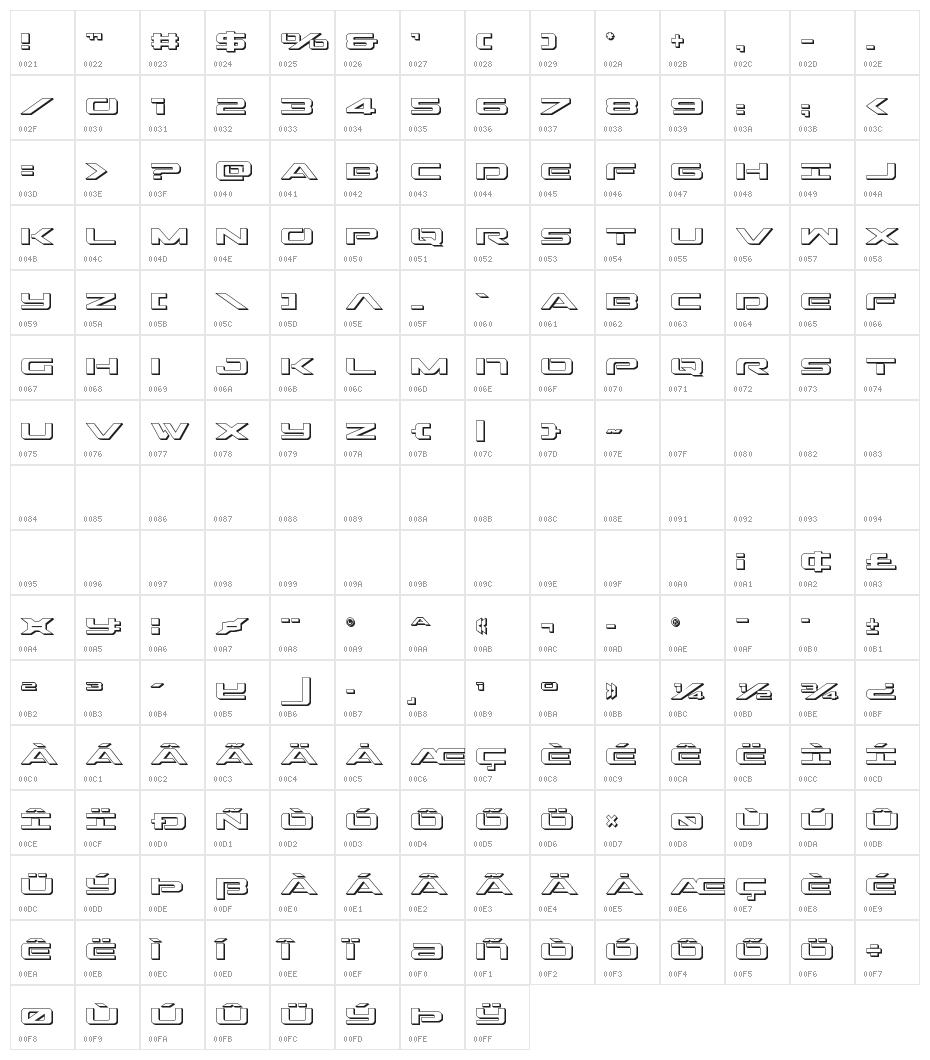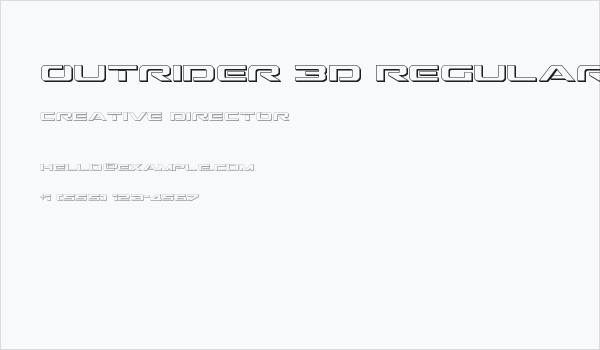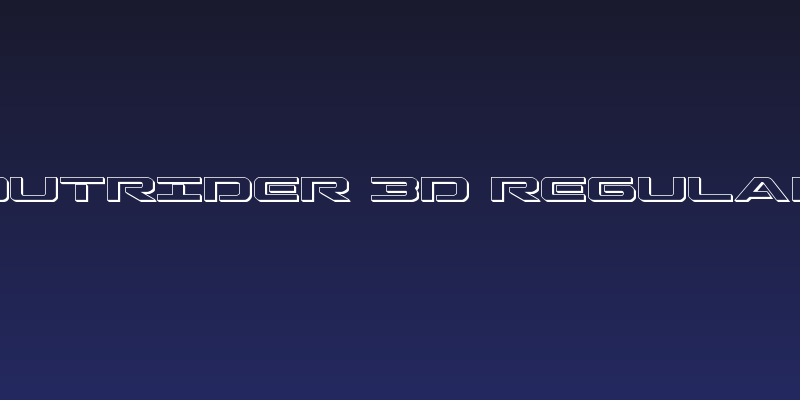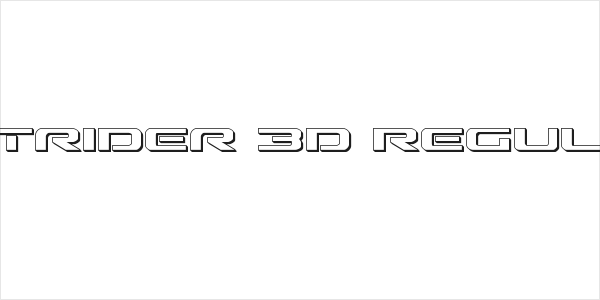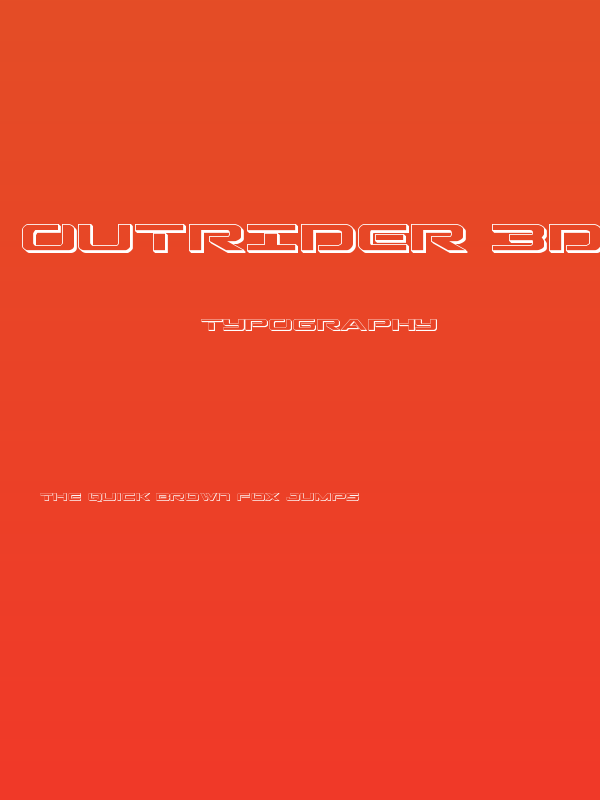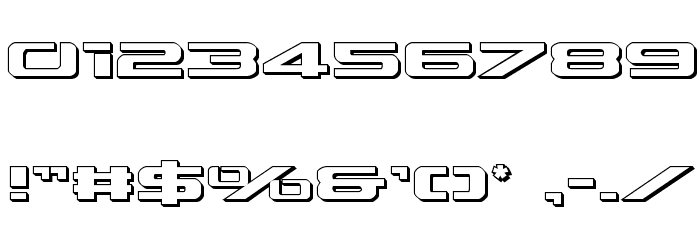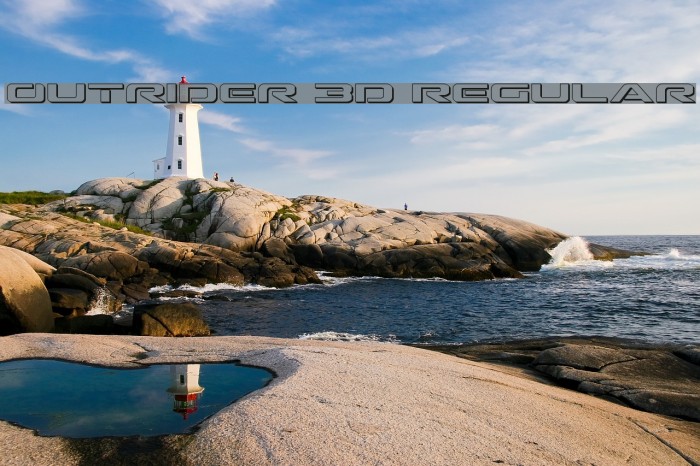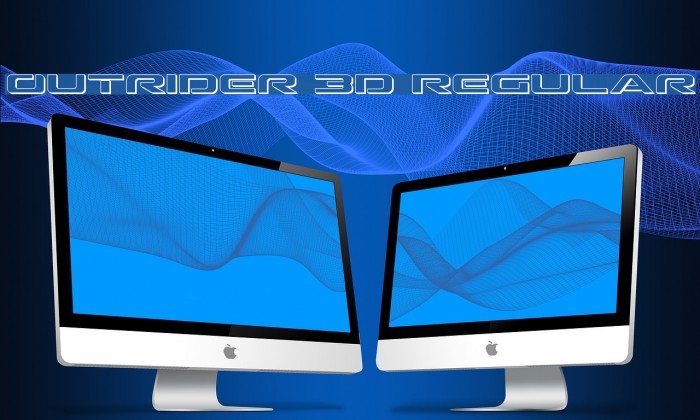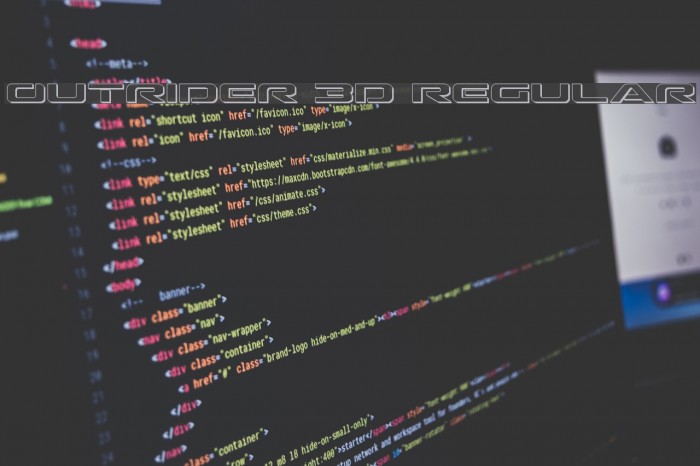
Outrider 3D Regular Font
This font features a bold, futuristic design with a three-dimensional effect. The characters are outlined, creating a hollow appearance that adds depth and visual interest. The geometric shapes and sharp angles give it a modern and tech-inspired look. Each letter is distinct, with consistent line thickness and a uniform style that maintains readability while offering a unique aesthetic. The numbers and special characters follow the same design principles, ensuring a cohesive appearance across all glyphs. This font is ideal for projects that require a standout, contemporary typeface.
| Proposed Projects | Ideal for sci-fi themed designs, tech branding, video game titles, and modern posters. |